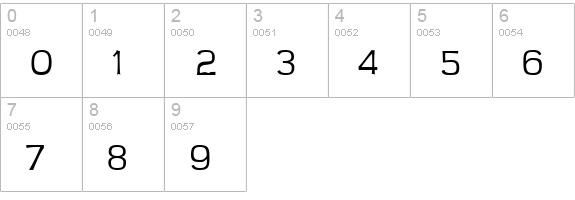
Teen Light is a refined, elegant variant in the Teen typeface family \xE2\x80\x94 well suited to elegant body text, refined sub-headings, and luxury branding.
Introducing Teen Light, a captivating and youthful font that is perfect for adding a touch of energy and excitement to any design project. With its sleek and modern style, Teen Light is a versatile typeface that can effortlessly convey a sense of youthful exuberance and creativity. This font is meticulously crafted to showcase a harmonious balance between elegance and playfulness. Its clean lines and subtle curves create a visually pleasing aesthetic that is both eye-catching and easy to read, making it ideal for a variety of design applications. Teen Light is not only visually appealing, but it also offers the added benefit of being freely available to download. Yes, you heard that right - this incredible font can be yours to use and enjoy without any cost. Simply head over to FontsMarket.com, and you can easily access and download Teen Light to enhance your creative projects. Whether you're working on a poster, logo, website, or any other design endeavor, Teen Light is sure to make a lasting impression. Its versatility and modern appeal make it suitable for a wide range of contexts, from fashion and beauty to technology and gaming. So why wait? Discover the endless possibilities that Teen Light has to offer and take your designs to new heights. Download this remarkable font today, completely free of charge, at FontsMarket.com. Unleash your creativity and let Teen Light illuminate your next design project with its youthful charm and captivating style.